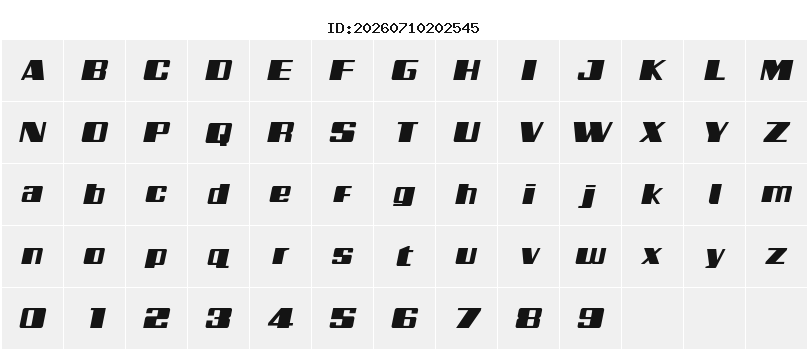
Galactic Storm Expanded Italic Preview
• Font Name: Galactic Storm Expanded Italic
• Font Style: Expanded Italic
• Full Font Name: Galactic Storm Expanded Italic
About Galactic Storm Expanded Italic.ttf
Galactic Storm Expanded Italic.ttf is a modern, elegant sans-serif font designed for ultimate readability and visual harmony. Perfect for branding, headlines, web design, and print materials.